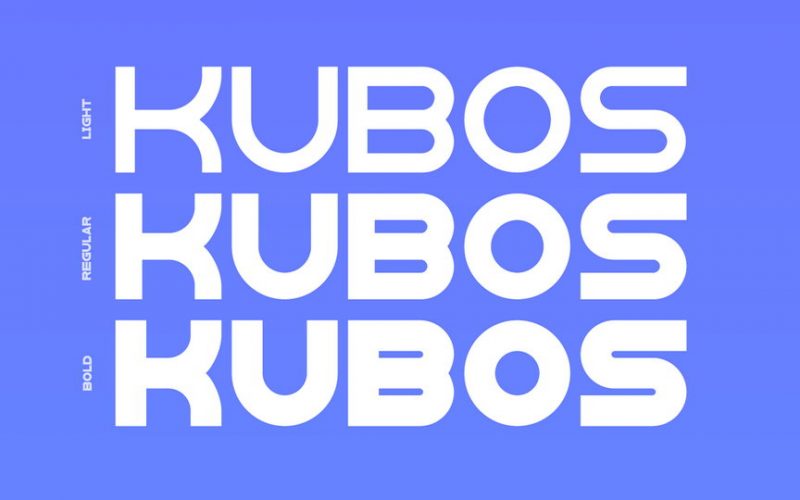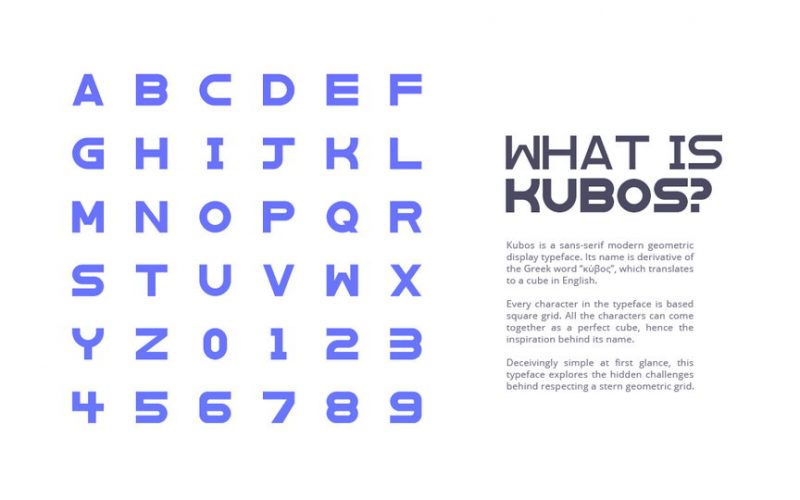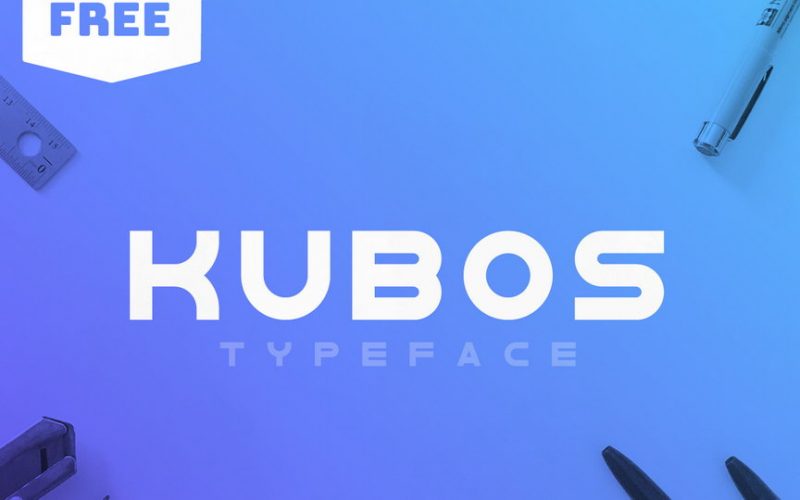
Kubos Typeface
Creativity is endless with this font. This font could satisfy any customer’s needs. Please share this beautiful and attractive font with your designer co-workers and friends. Introducing Kubos Free Font. Kubos Typeface is a FREE sans-serif modern geometric display typeface. Its name is derivative of the Greek word “κύβος”, which translates to a cube in English. Deceivingly simple at first glance, this typeface explores the challenges behind respecting geometric grid. Kubos is perfect for branding projects, home-ware designs, product packaging, magazine headers – or simply as a stylish text overlay to any background image.